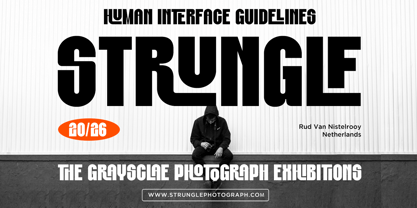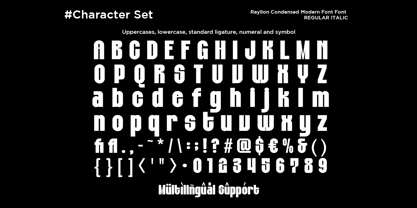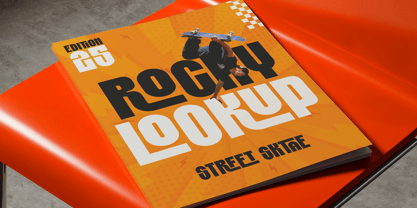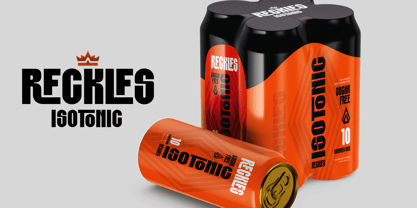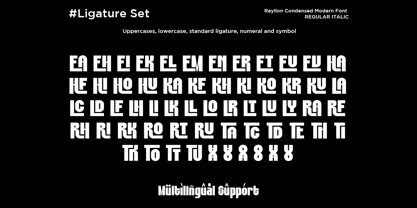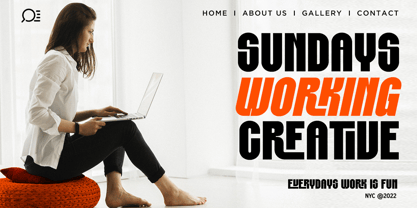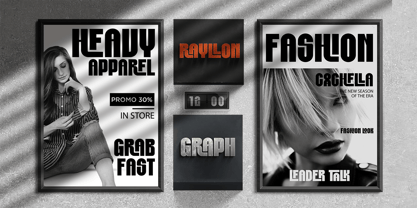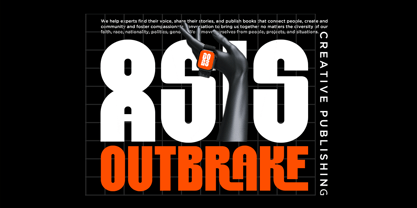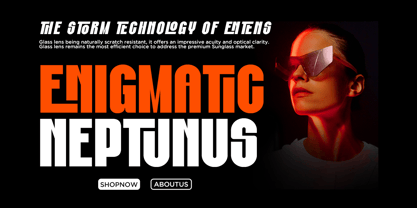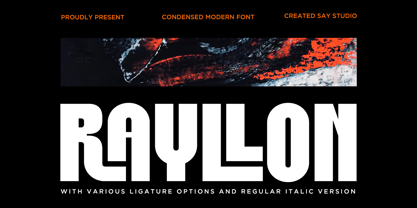
Rayllon
The Rayllon Font Family was designed by Mussyayin and published by Say Studio. Rayllon contains 2 styles and family package options. More about this family
Rayllon is a modern condensed sans serif typeface crafted to make a bold first impression. Drawing inspiration from contemporary architecture and clean urban visuals, Rayllon merges strong structure with refined simplicity, resulting in a typeface that embodies confidence, modernity, and timelessness. Its condensed proportions enable designers to optimize space while ensuring excellent readability and visual impact. Designed for versatility, Rayllon seamlessly adapts to a variety of creative projects, including striking logos, powerful headlines, editorial layouts, posters, packaging, and digital content. This font delivers a commanding voice without overwhelming the overall design. The bold character shapes enhance clarity and authority, making Rayllon particularly well-suited for branding and modern visual identities. It features meticulously crafted uppercase and lowercase letters, regular and italic versions, along with various ligature options that introduce subtle personality and flexibility to your typography. With clean kerning, balanced spacing, and robust punctuation, Rayllon ensures smooth performance for both print and digital applications. Whether you’re establishing a brand from scratch or refining an existing identity, Rayllon is tailored to support creative professionals who prioritize clarity, strength, and modern aesthetics. It’s a dependable choice for designers aiming for their message to stand tall, sharp, and unmistakably contemporary. Thank You, Have a Good Day! Saystudio